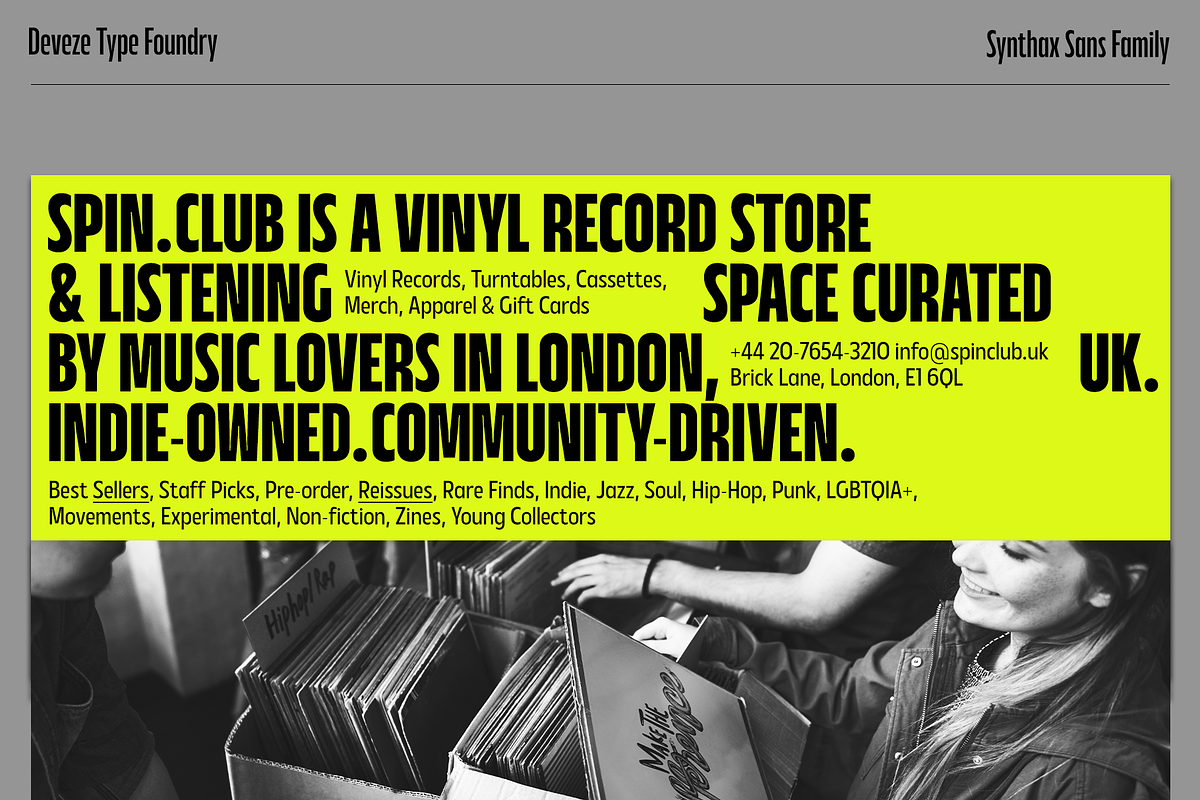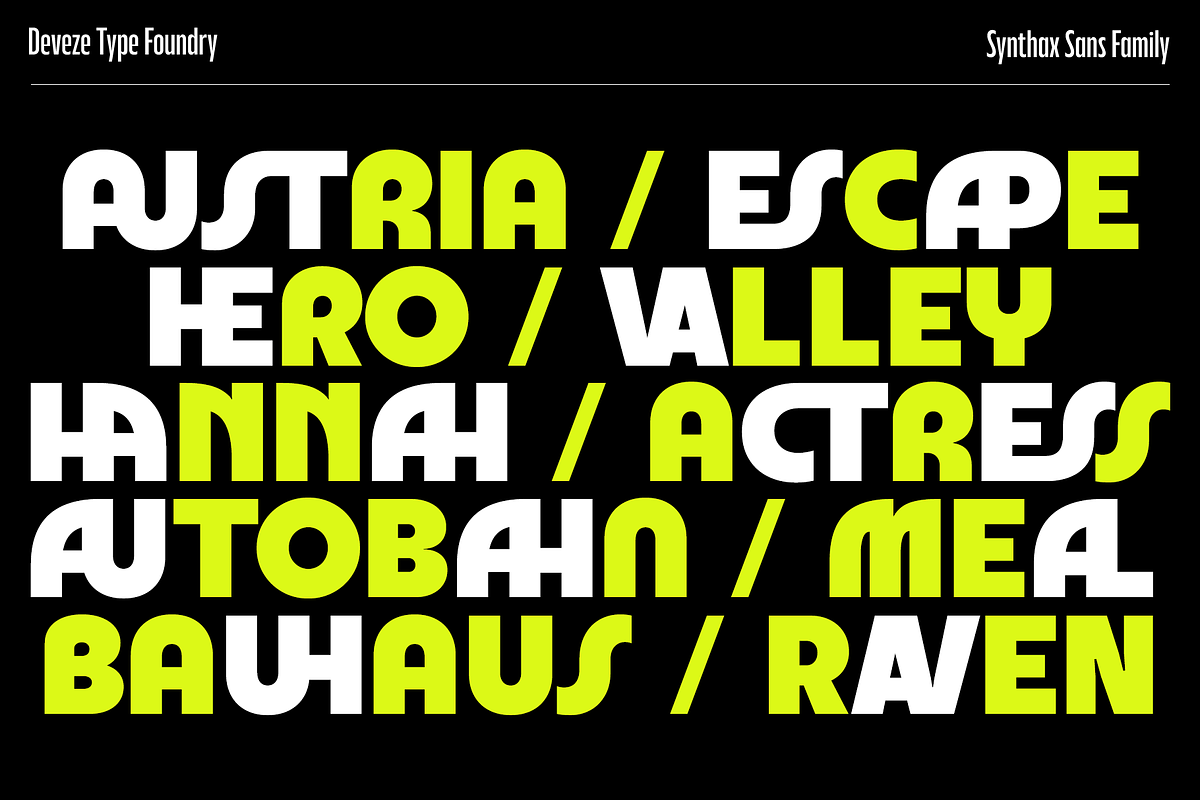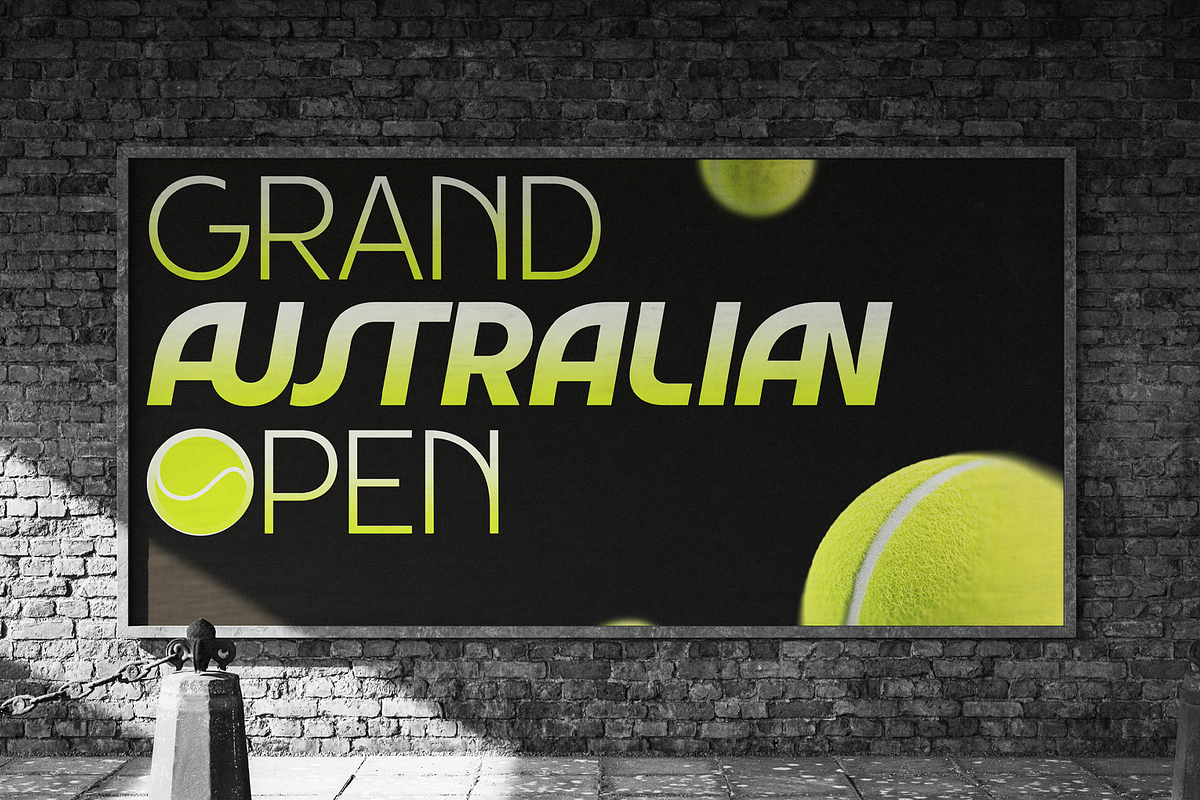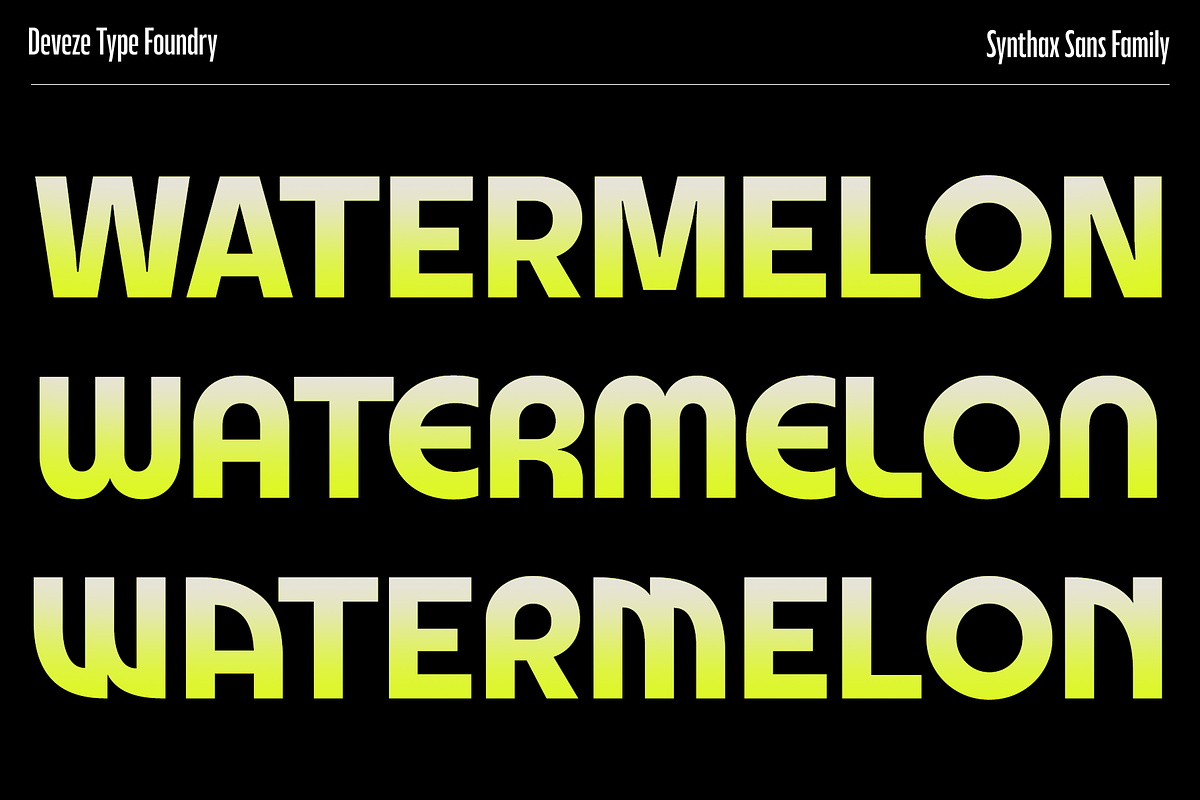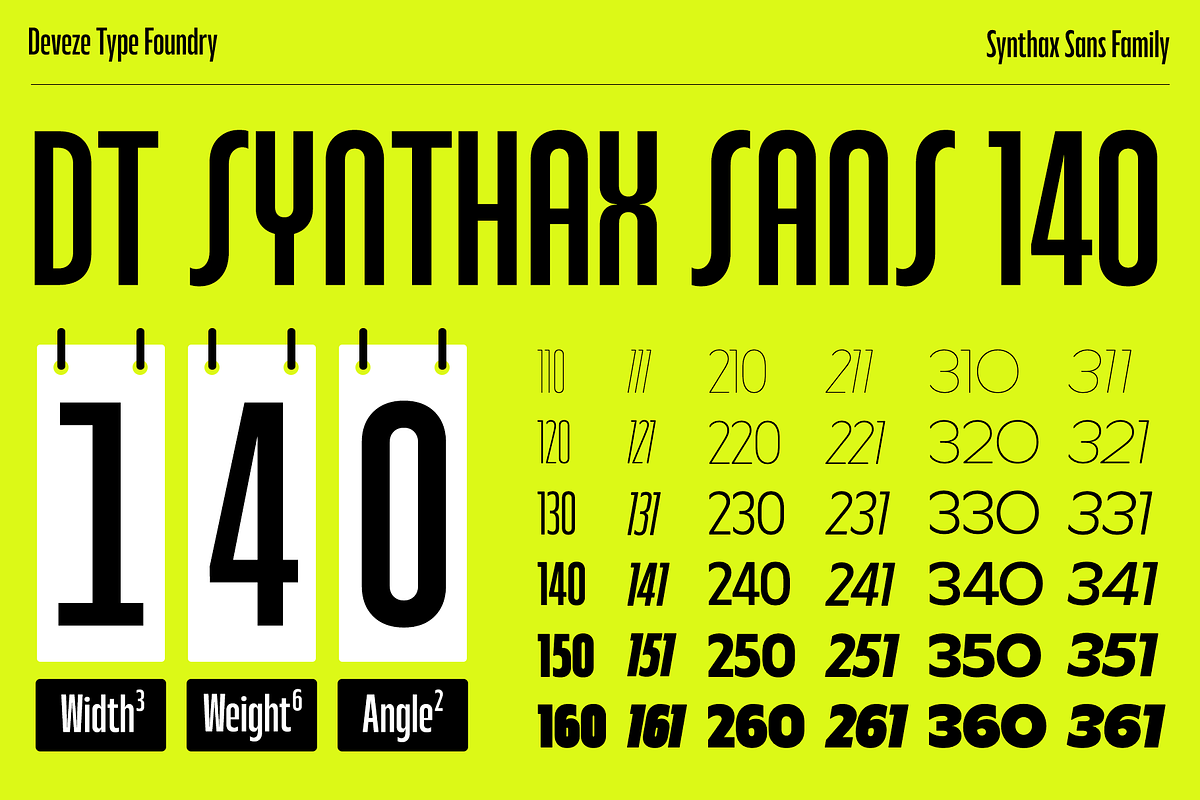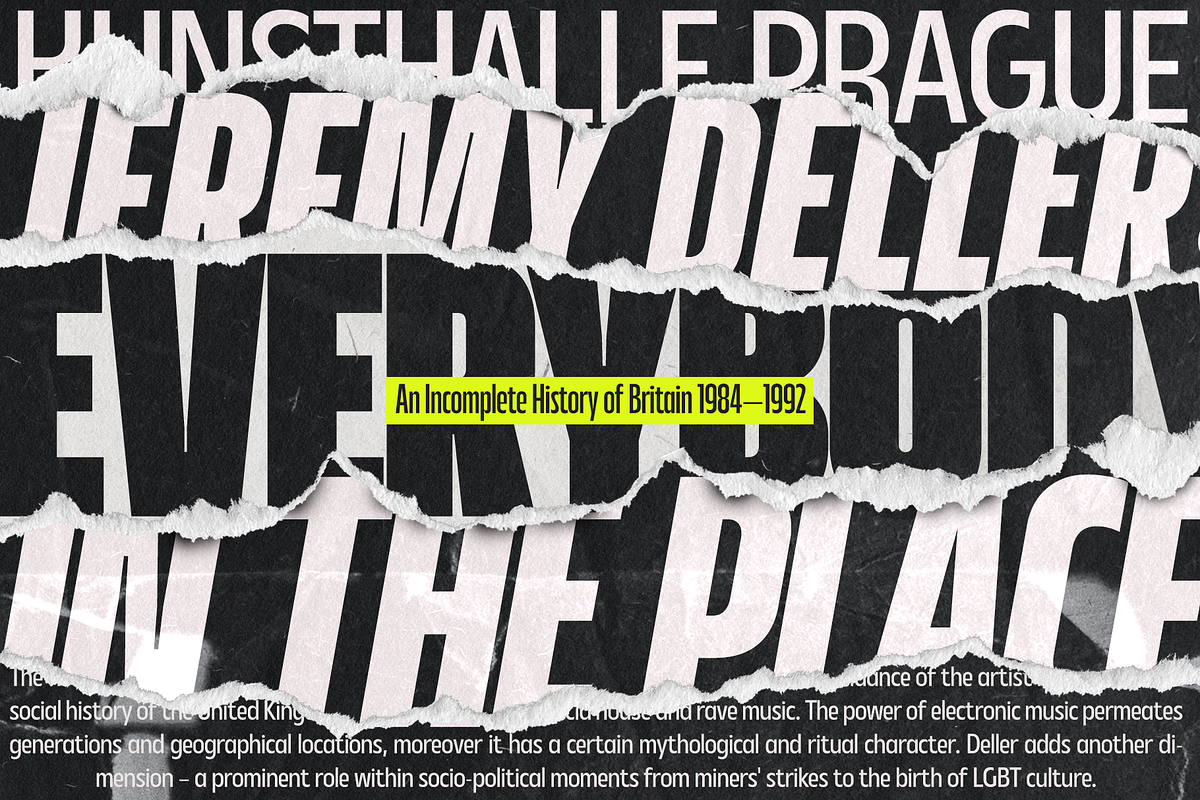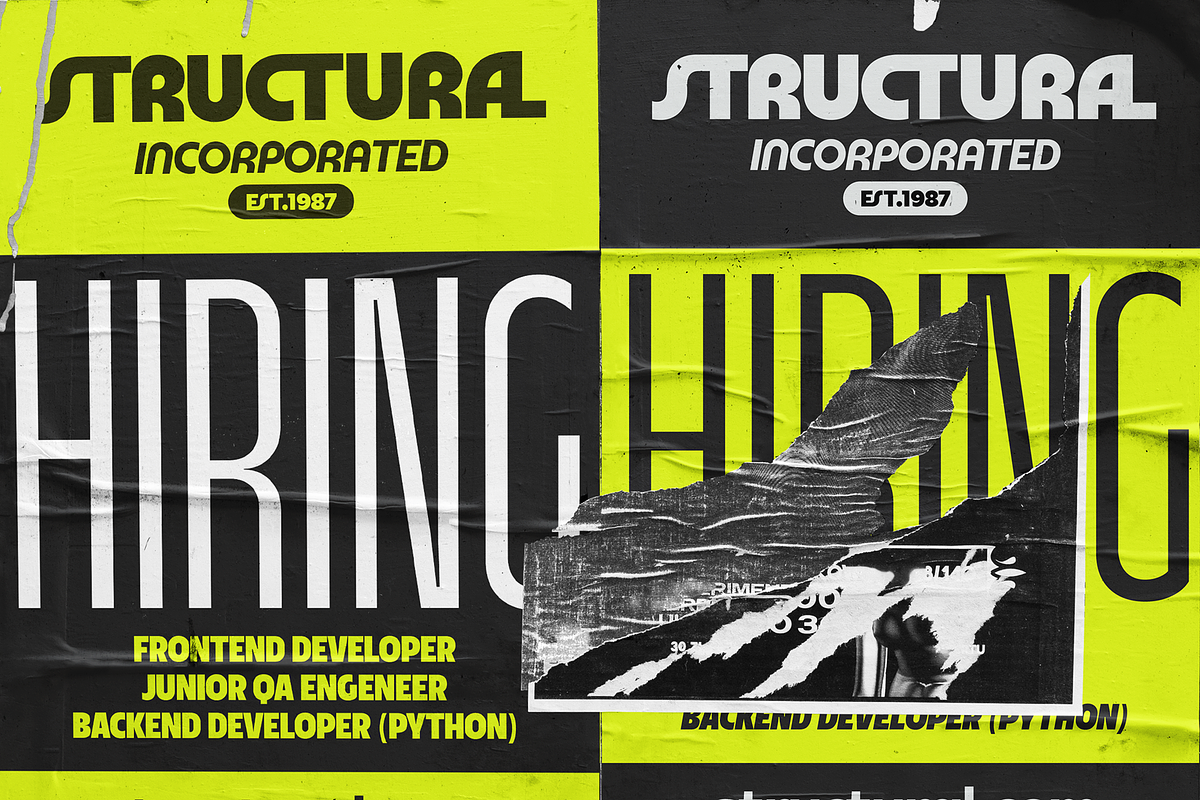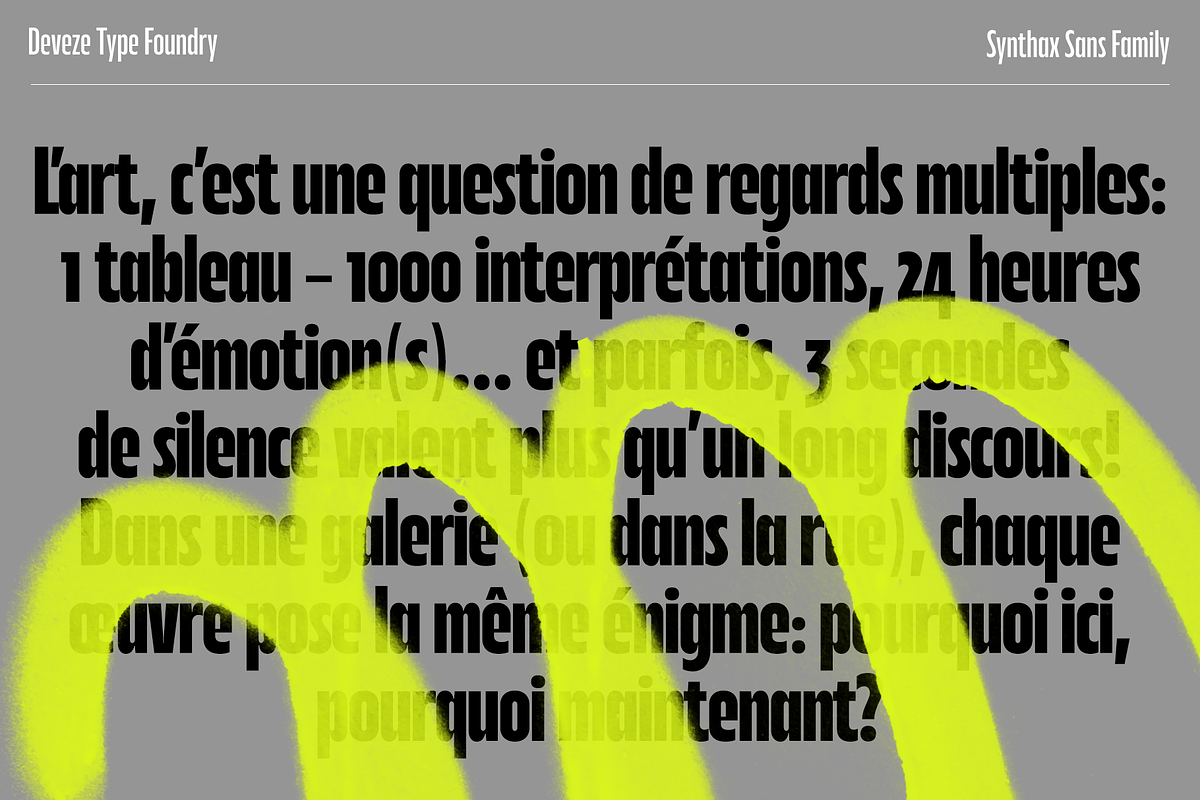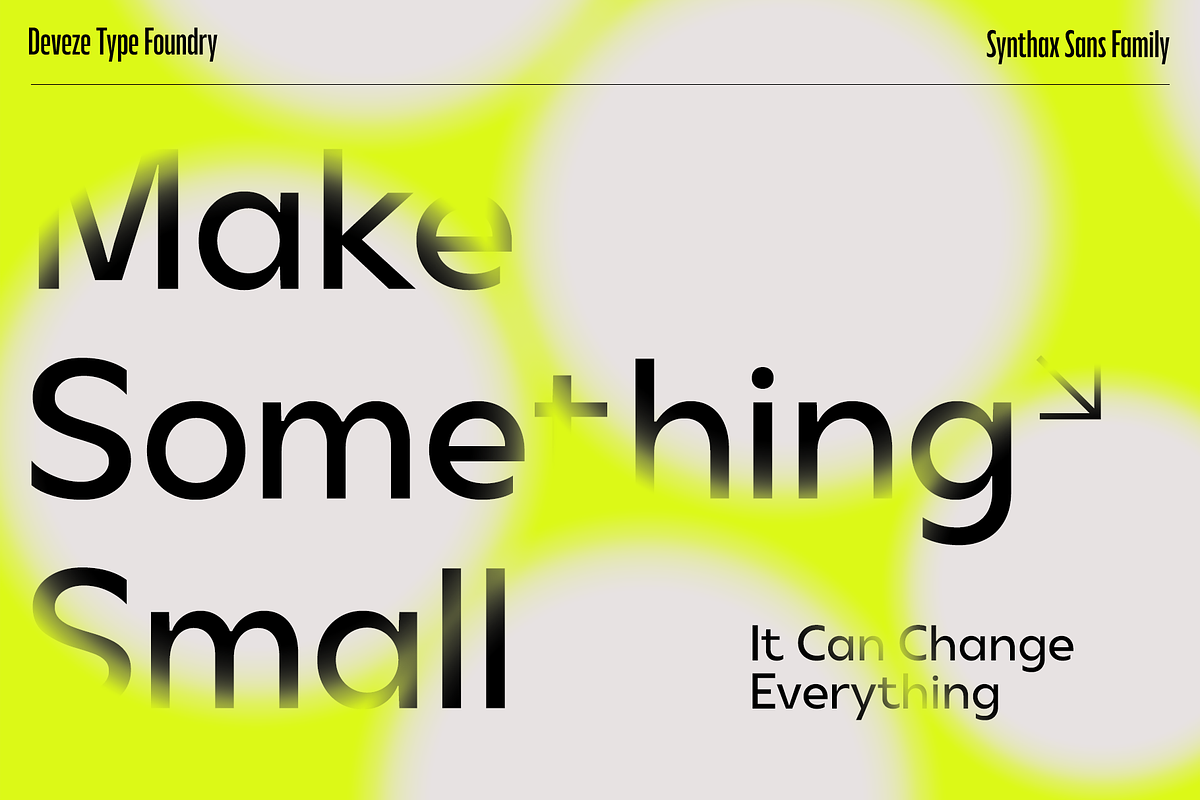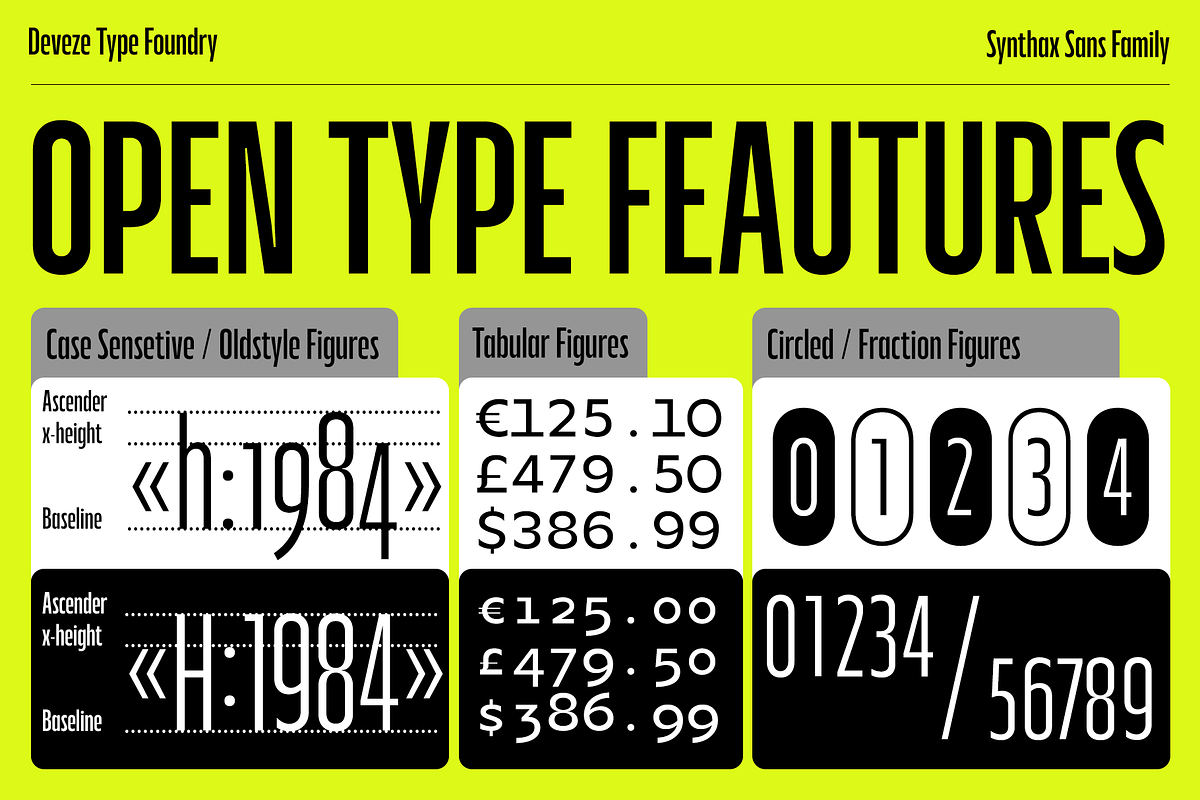
DT Synthax Sans
DT Synthax Sans is a shape-shifter in the world of grotesques — equally at home in the precision of Swiss-style typography and in the playful curves of retro 80s design. At its core, it’s clean, balanced, and modern; but with the twist of a stylistic set, it reveals rounded, almost vinyl-soft forms that hum with nostalgia. Three widths — from disciplined Condensed to confident Wide — give it different voices, while six weights with matching Obliques ensure a full expressive range. Packed with typographic extras — from old-style numerals to case-sensitive forms, arrows, circled numbers, and a generous set of ligatures — DT Synthax Sans isn’t just a font family. It’s a modular system for building identities that feel both timeless and unexpected.